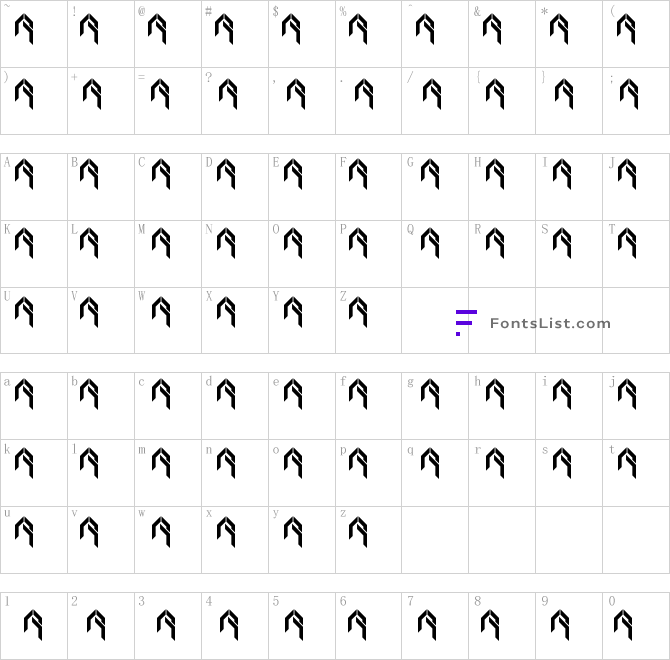
- Font Name:Bambu Runcing Lite
Bambu-Runcing-Lite.ttf is a very beautiful artistic font, Bambu-Runcing-Lite.ttf is widely used in the design and printing of various books and pictures,Bambu-Runcing-Lite.ttf has a strong visual impact,Bambu-Runcing-Lite.ttf is a commonly used font in newspapers, magazines and books, and is used in posters, e-commerce Poster design, store design, logo design, font design and other fields.Bambu-Runcing-Lite.